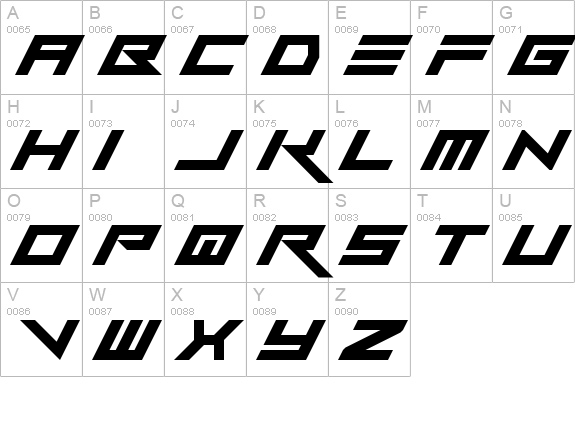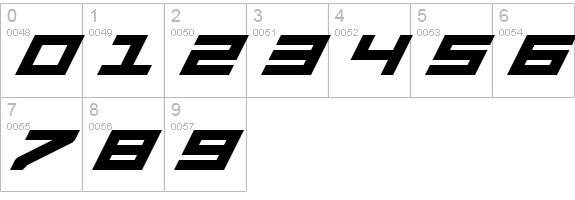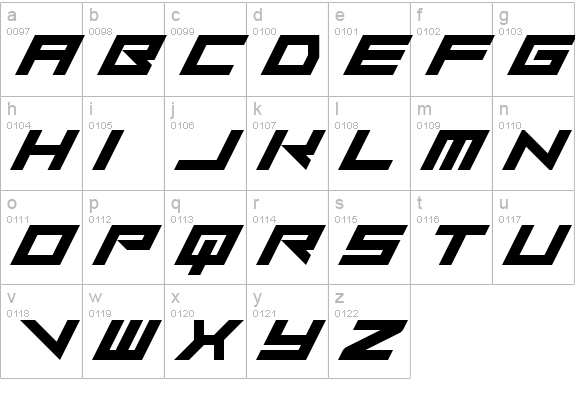
Vermin Vibes Slant Regular is the standard, neutral variant in the Vermin typeface family \xE2\x80\x94 well suited to general body text, paragraphs, and standard typographic work.
Vermin Vibes Slant Regular is a versatile and modern font that exudes a sense of edgy style and dynamic energy. With its sleek slanted design and sharp geometric lines, this font is perfect for adding a contemporary touch to any project. Whether you're creating a poster, logo, or website design, Vermin Vibes Slant Regular will make your text stand out and command attention. Best of all, this font is available for free! You can easily download Vermin Vibes Slant Regular at FontsMarket.com and start using it in your projects right away. Don't miss out on this fantastic opportunity to enhance your designs with a high-quality font that is both stylish and easy to read. Upgrade your typography game with Vermin Vibes Slant Regular today!